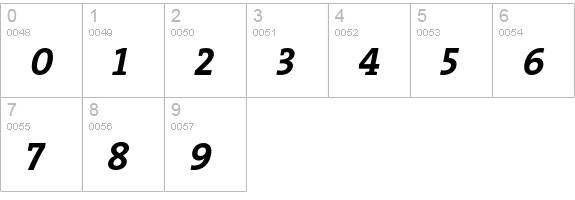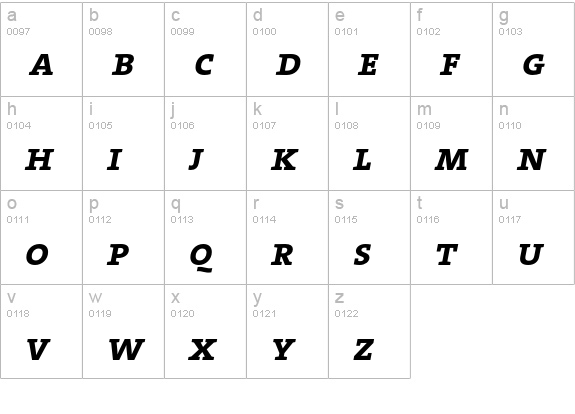
TheSerif Bold Caps Italic Font Details
TheSerif Bold Caps Italic is a strong, high-contrast, italic variant in the TheSerif typeface family \xE2\x80\x94 well suited to headlines, attention-grabbing titles, and strong calls-to-action.
TheSerif Bold Caps Italic font is a stunning display typeface that exudes elegance and sophistication. Its bold uppercase characters with subtly slanted italics create a powerful and stylish impact, making it an excellent choice for attention-grabbing headlines, logos, and branding materials. This font boasts a unique combination of classic serifs and a contemporary twist, resulting in a truly versatile design that is perfect for both traditional and modern projects. Its sleek and refined letterforms are meticulously crafted, ensuring optimal legibility while still maintaining a distinct personality. TheSerif Bold Caps Italic font is freely available to download at FontsMarket.com, making it accessible to designers, creatives, and typophiles alike. With just a few clicks, you can enhance your projects with this exceptional typeface, adding a touch of sophistication and professionalism. Whether you're designing a magazine spread, website, or packaging, TheSerif Bold Caps Italic font will elevate your visuals to new heights. Its bold yet graceful appearance demands attention, effortlessly capturing the essence of your content and leaving a lasting impression on your audience. Don't miss out on the opportunity to enhance your design toolkit with this exceptional font. Download TheSerif Bold Caps Italic today from FontsMarket.com and unleash your creativity with a typeface that combines timeless elegance with contemporary flair.